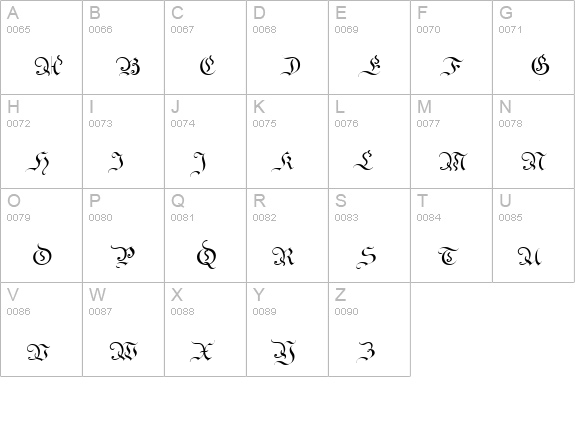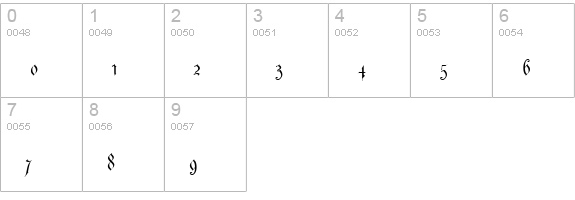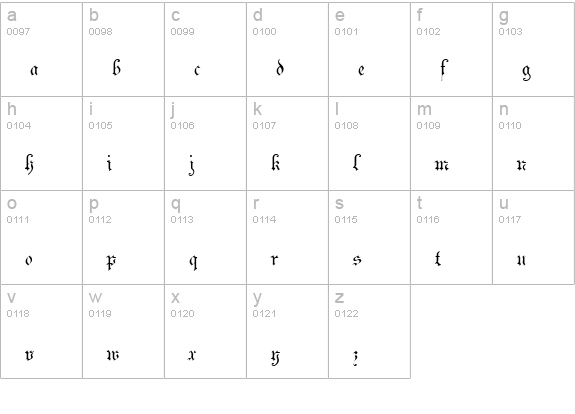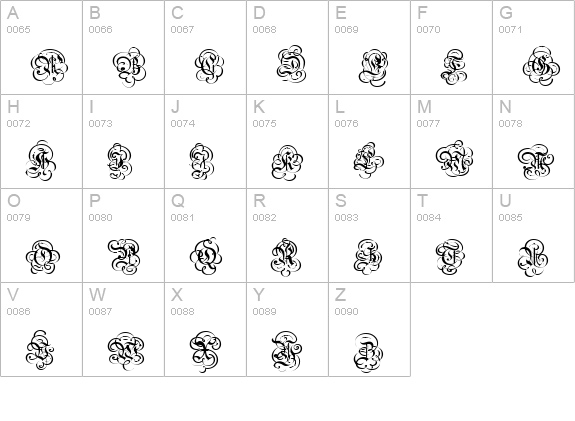
Parchment Font Details
Introducing Parchment font, a captivating and versatile typeface that effortlessly captures the allure of vintage calligraphy. With its intricate and elegant letterforms, Parchment font adds a touch of sophistication and charm to any project, making it perfect for invitations, branding, and editorial designs. This exquisite font showcases a harmonious balance between delicate curves and strong, confident strokes, creating a visually captivating experience for readers. Its timeless appeal makes it a fantastic choice for both traditional and contemporary designs, effortlessly bridging the gap between classic elegance and modern aesthetics. Parchment font's versatility extends beyond its stunning visual impact. With an extensive character set, it supports multiple languages, ensuring that your message can be effectively conveyed to audiences around the world. Each letter is meticulously crafted, paying homage to the skill and artistry of traditional calligraphy, while also offering a fresh and contemporary twist. One of the most remarkable aspects of Parchment font is that it is free! Yes, you read it right. As a helpful assistant, I am delighted to inform you that Parchment font can be freely downloaded at FontsMarket.com. This means that you can now add this exceptional font to your collection without any cost, expanding your creative possibilities without breaking the bank. Don't miss out on the opportunity to elevate your designs with the allure and grace of Parchment font. Download it for free at FontsMarket.com today and embark on a journey of creativity and elegance.